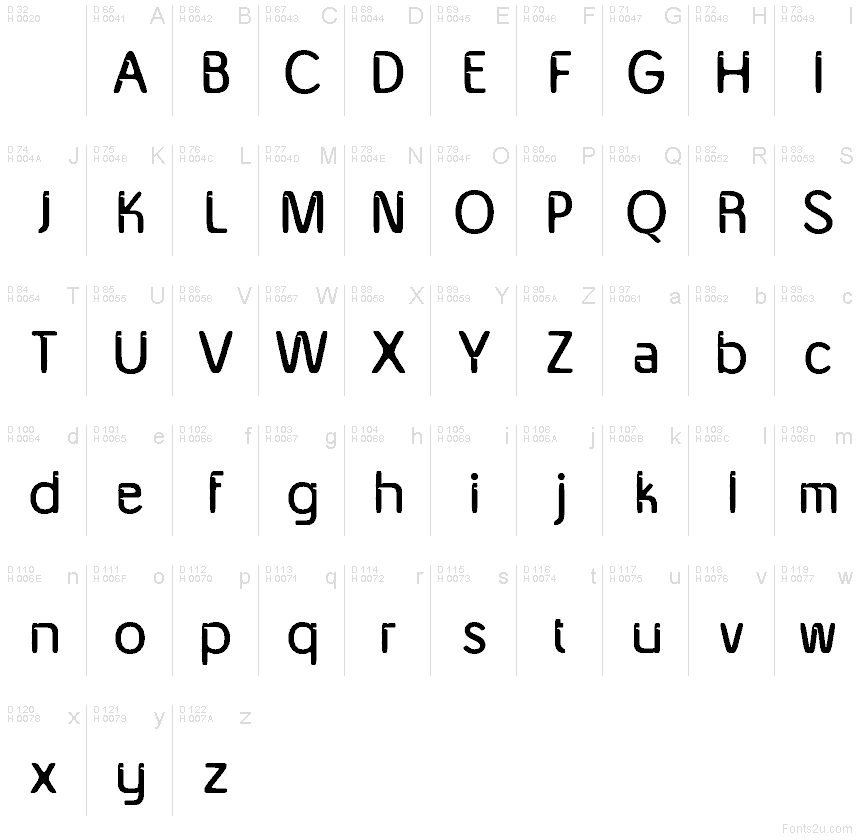
CSHaltonDrawn-Regular Demo
CS Halton Drawn font from Craft Supply Co. is a free display font with modern and slightly retro elements. Elegant, with rounded terminals, this typeface exhibits a smooth appearance and an approachable design. Its geometric influences are visible, yet gentle, which truly adds to its perfect simplicity and all-purpose use.
Use CS Halton Drawn for bottle labels, magazine covers, poster designs, product packaging or classic branding projects in the cosmetics industry. It will also make fantastic birthday invitation cards and any written merchandise label/instruction you make up.
CS Halton Drawn Demo